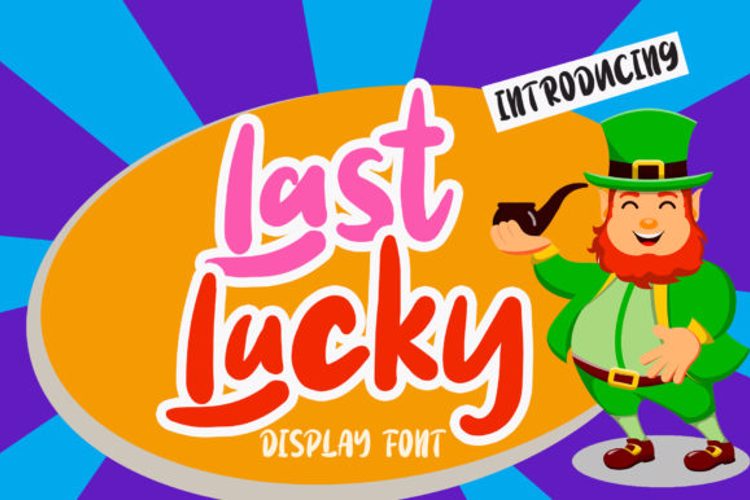
Last Lucky Font
About Last Lucky Font
Last Lucky is a playful and sweet display font. Whether you use it for cartoon related designs, children games or just any creation that requires a lovely touch, this font will be an amazing choice.